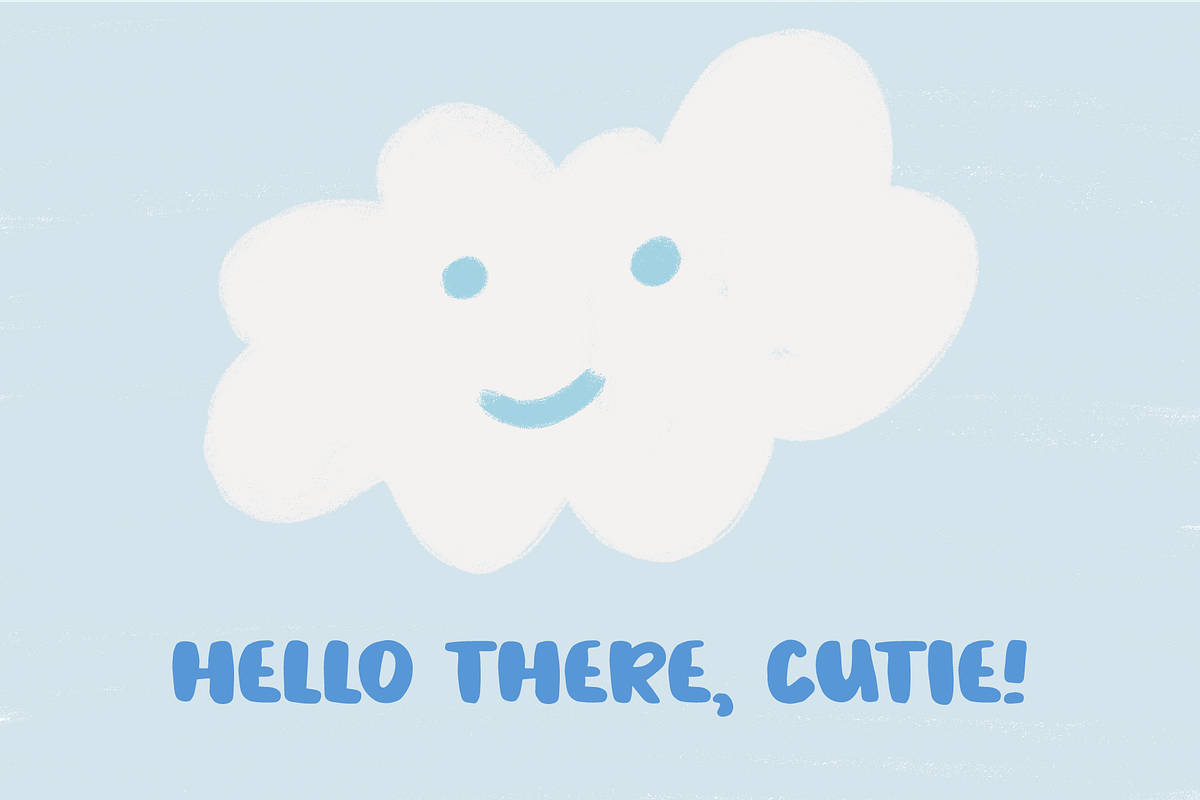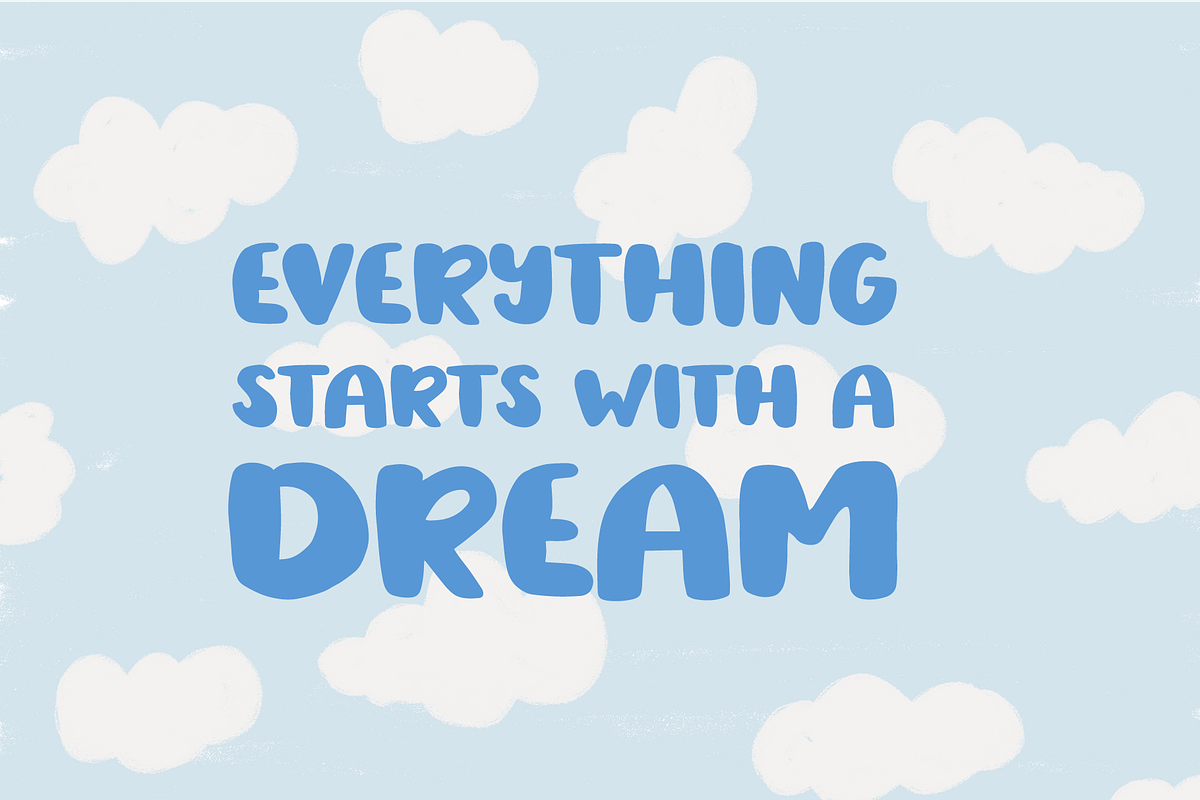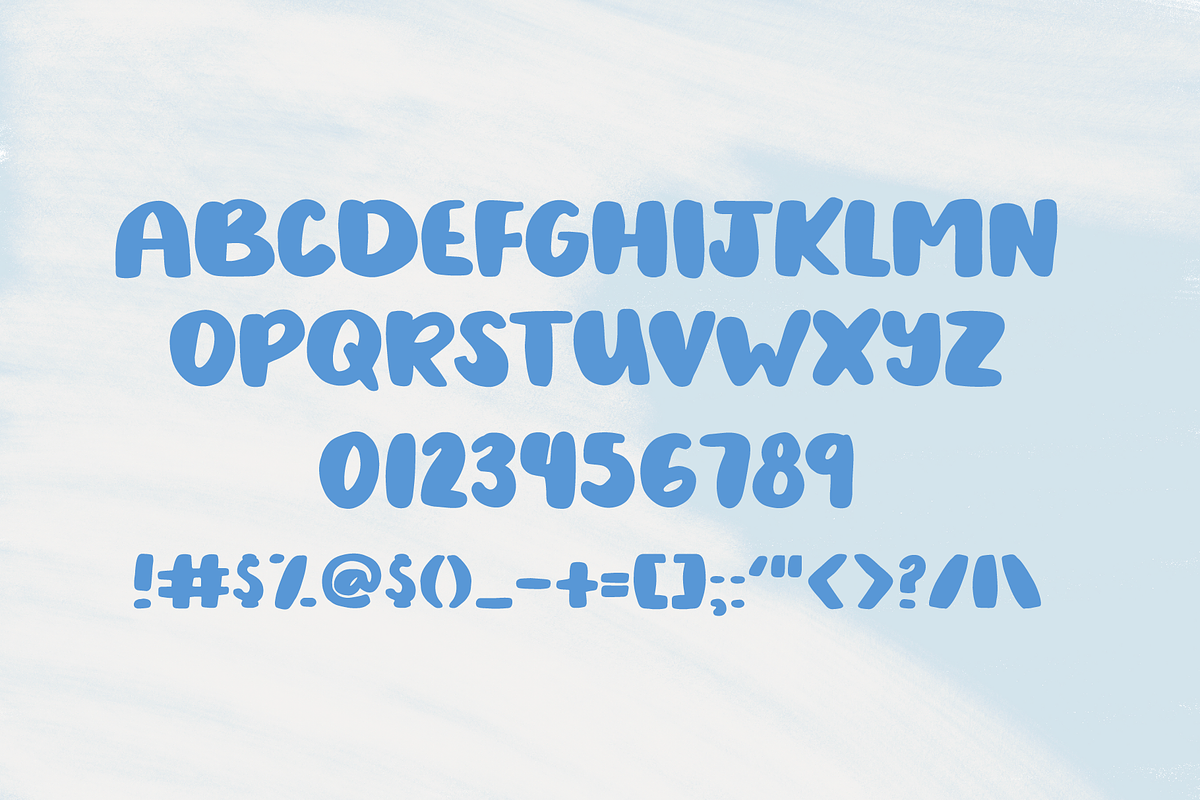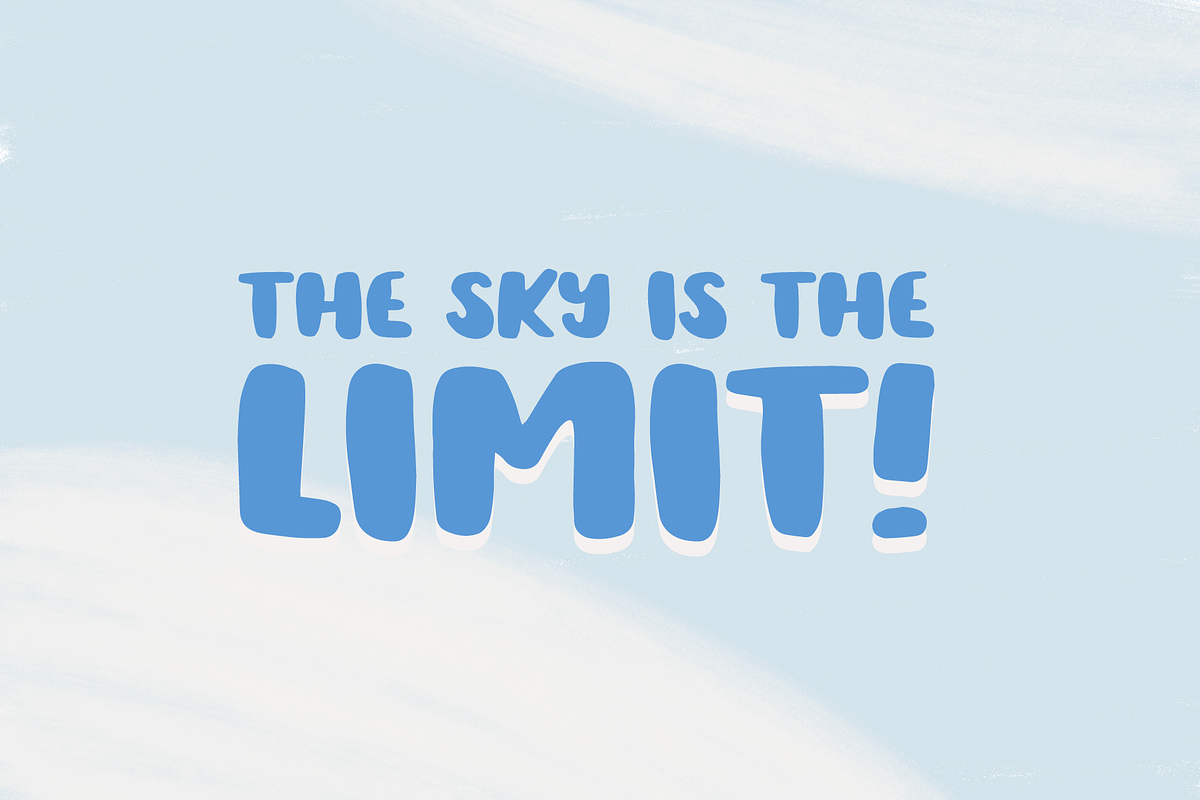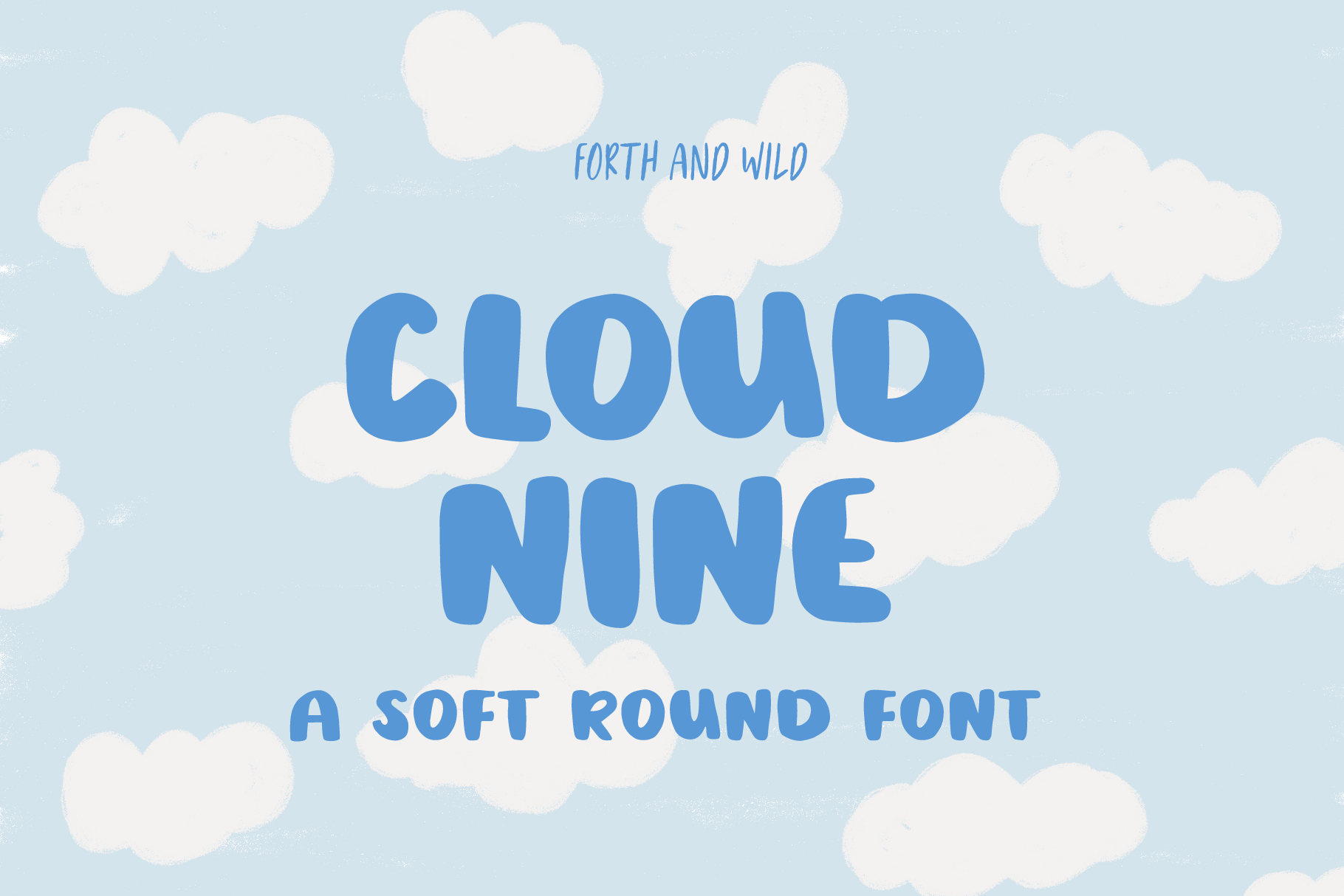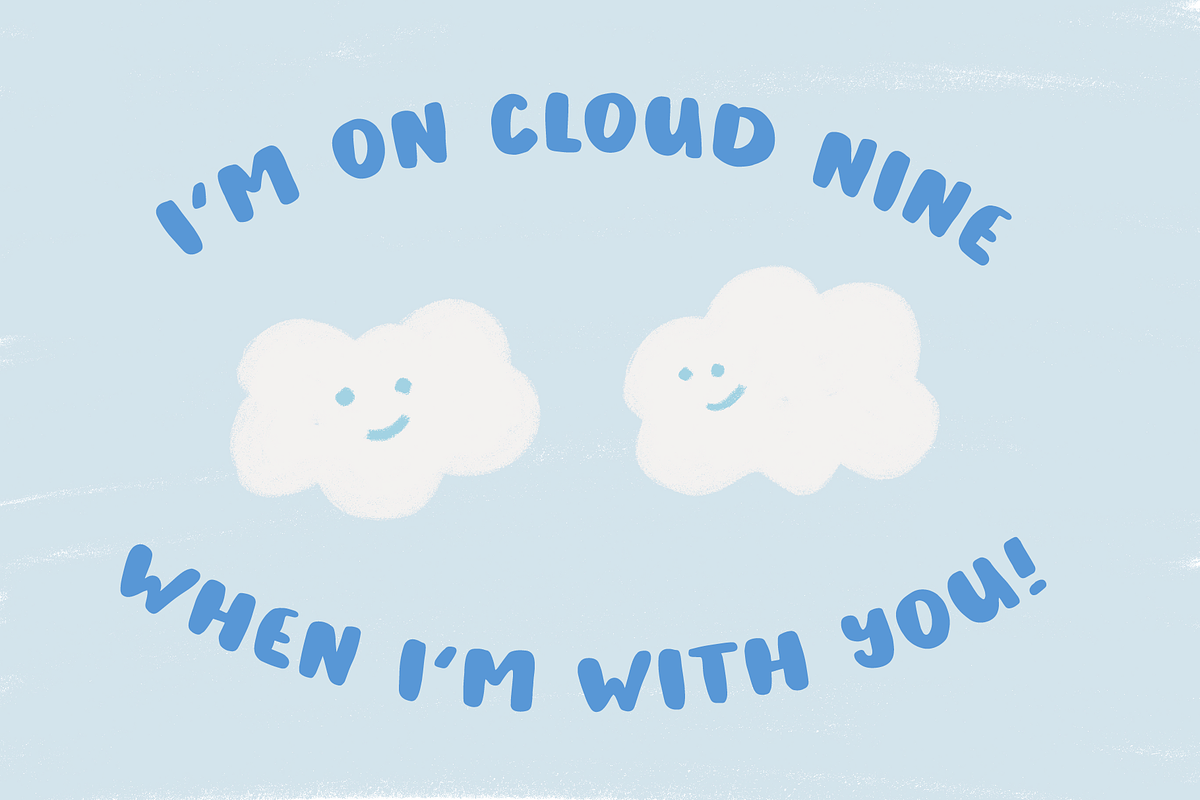
Cloud Nine Round Bold Font
Cloud Nine is a round and bold font that is perfect for adding a personal touch to your next project.
Cloud Nine is a handwritten UPPERCASE simple and bold display font. Cloud Nine display font works great for creating logos, quotes to share on Instagram, social media, and more! Please note the font only comes with what you see on the second image. Punctuation and symbols are limited.